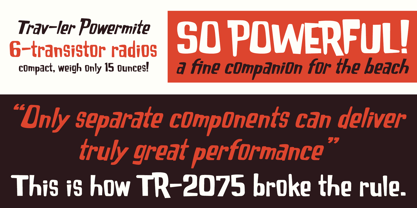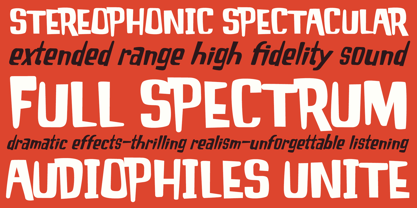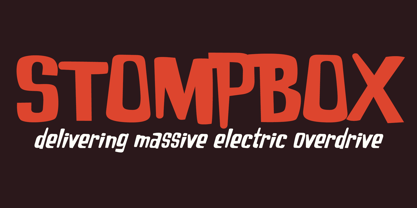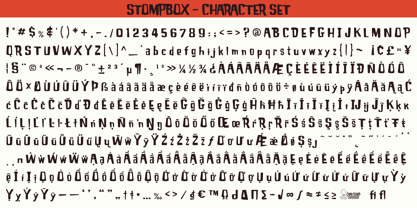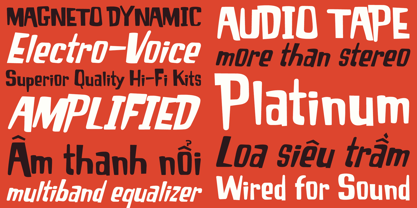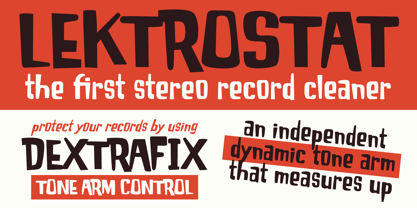
Stompbox
by One Eyed Squid
The Stompbox Font Family was designed by Brian J. Bonislawsky, Dave Cohen and published by One Eyed Squid. Stompbox contains 2 styles and family package options. More about this family
Stompbox is a loud, high-voltage display font built to bring electric energy, bold attitude, and center-stage impact to your designs. Inspired by the power and presence of amplified sound, its strong letterforms deliver a charged, overdriven personality that feels perfect for music-driven and attention-grabbing creative work. Available in Regular and Italic styles, Stompbox is ideal for posters, album art, branding, packaging, logos, social media graphics, event materials, and other projects that call for a powerful, expressive typographic voice. Includes extended Latin language support, including Vietnamese.
Designers: Brian J. Bonislawsky, Dave Cohen
Foundry: One Eyed Squid